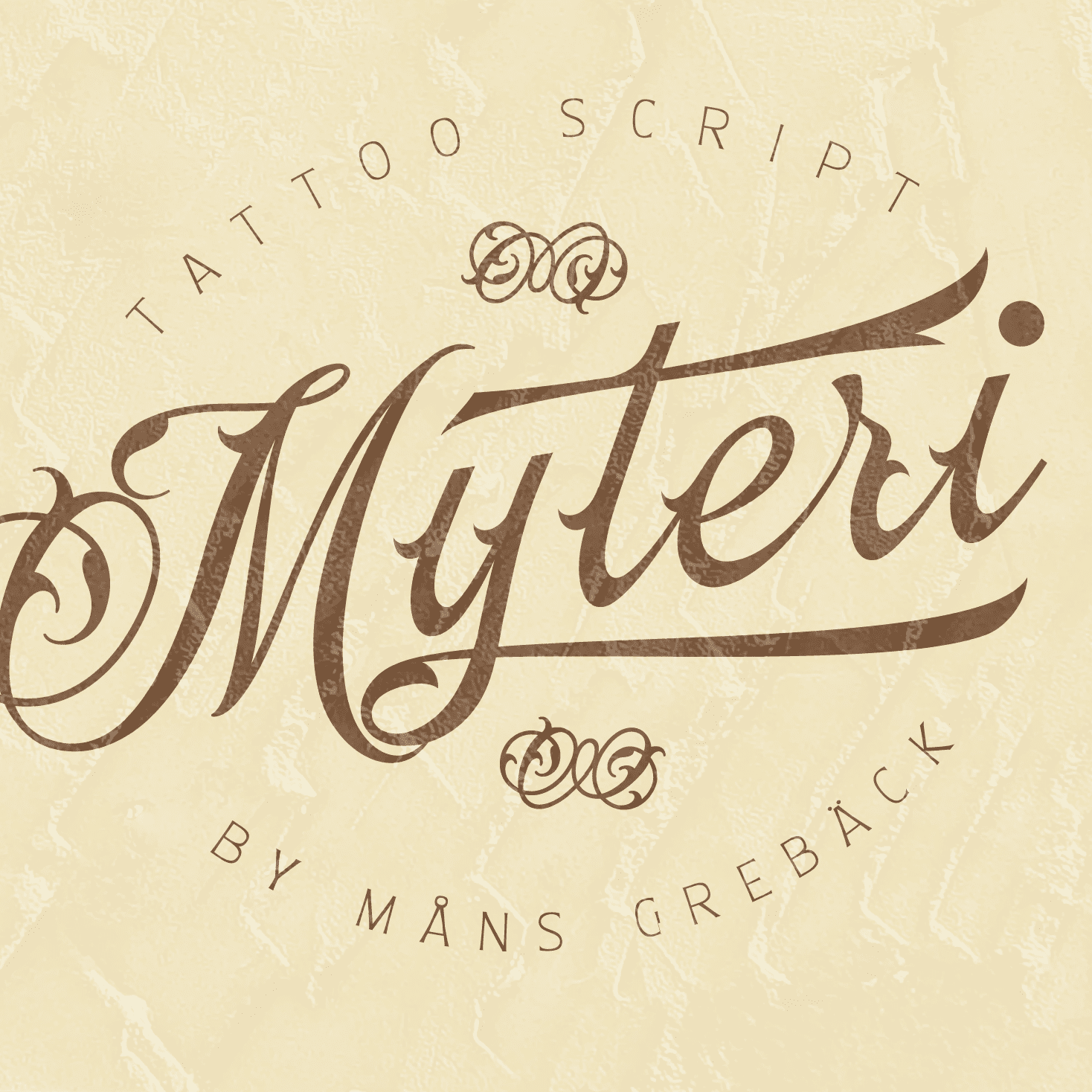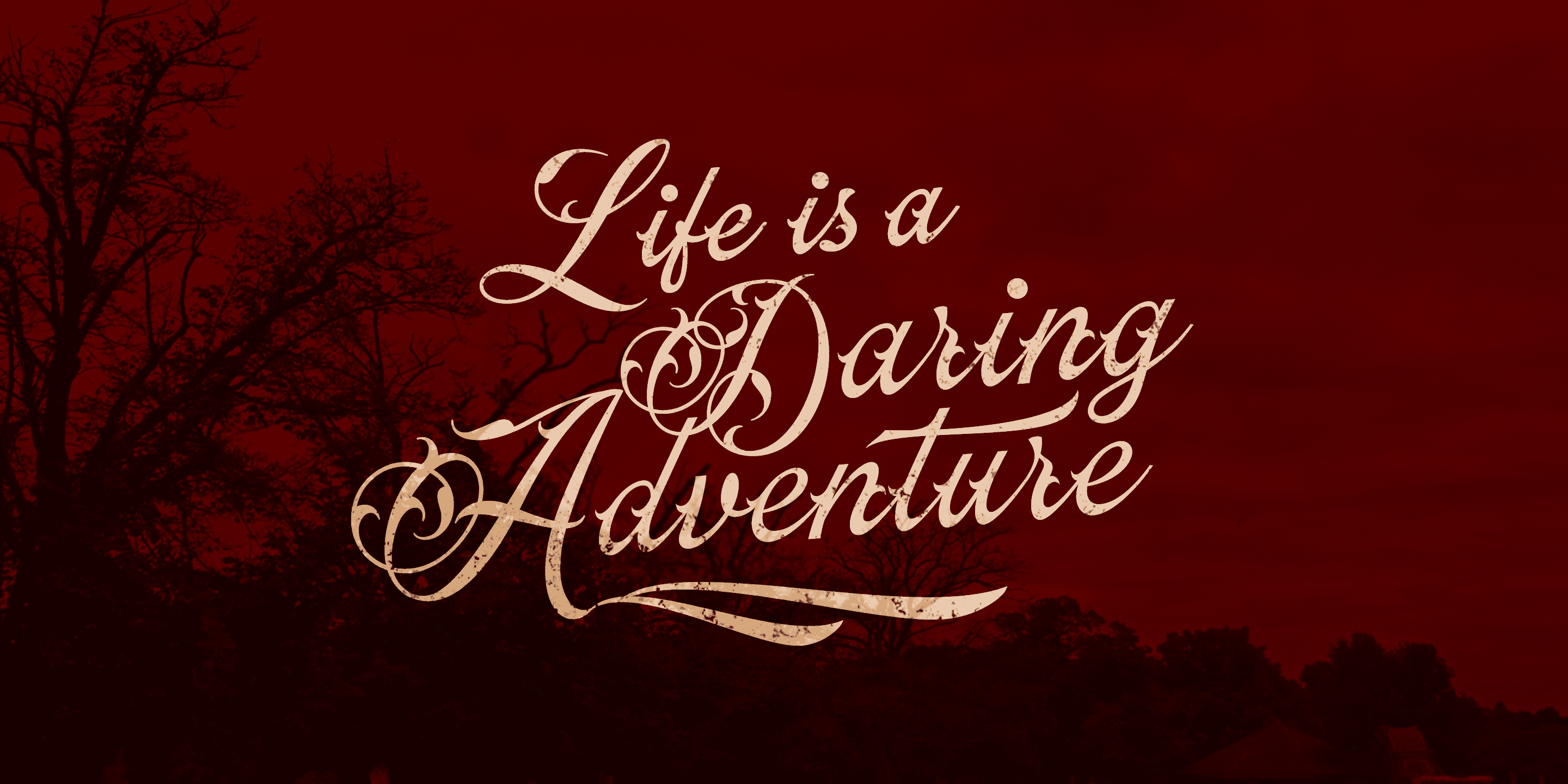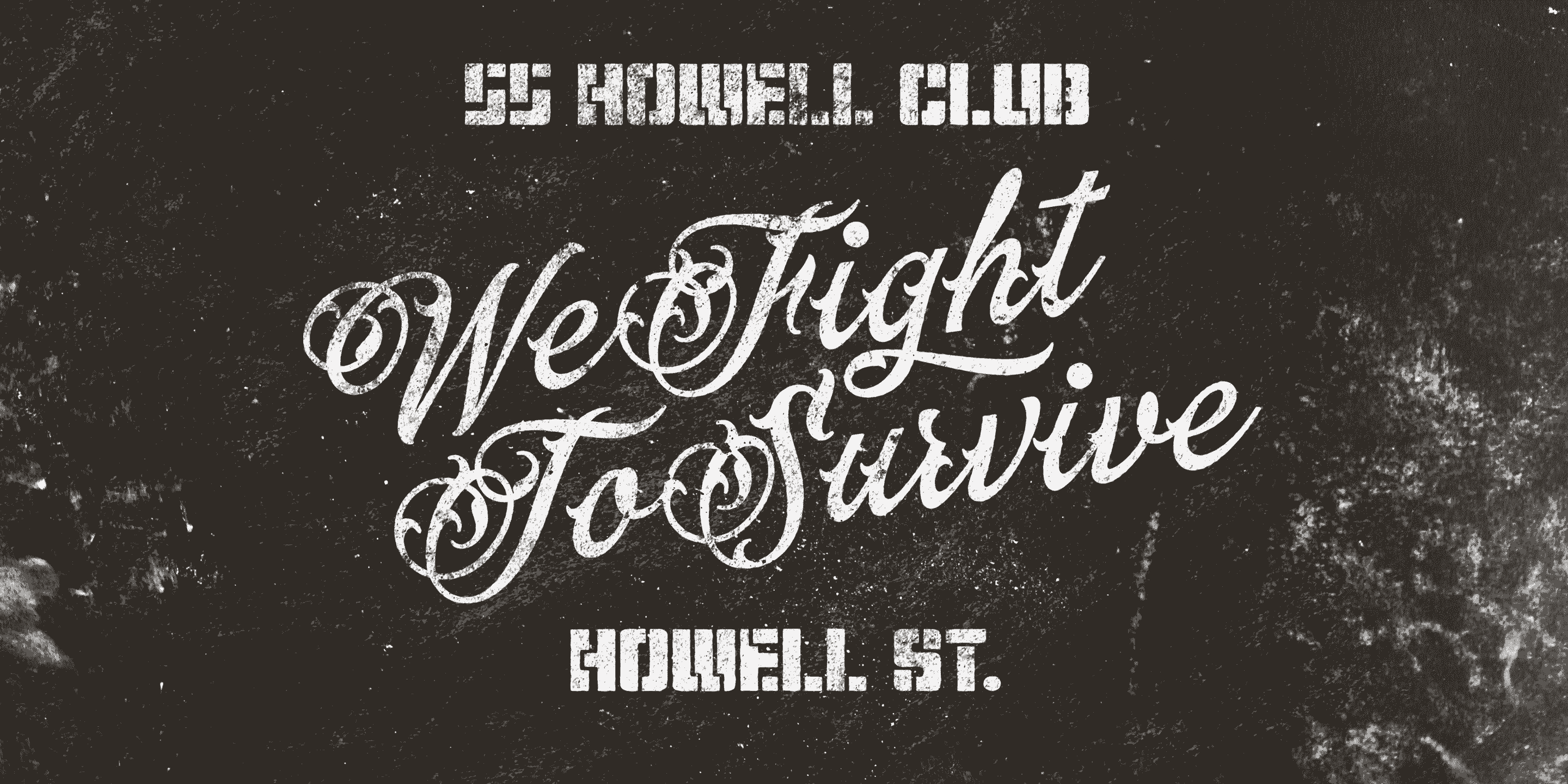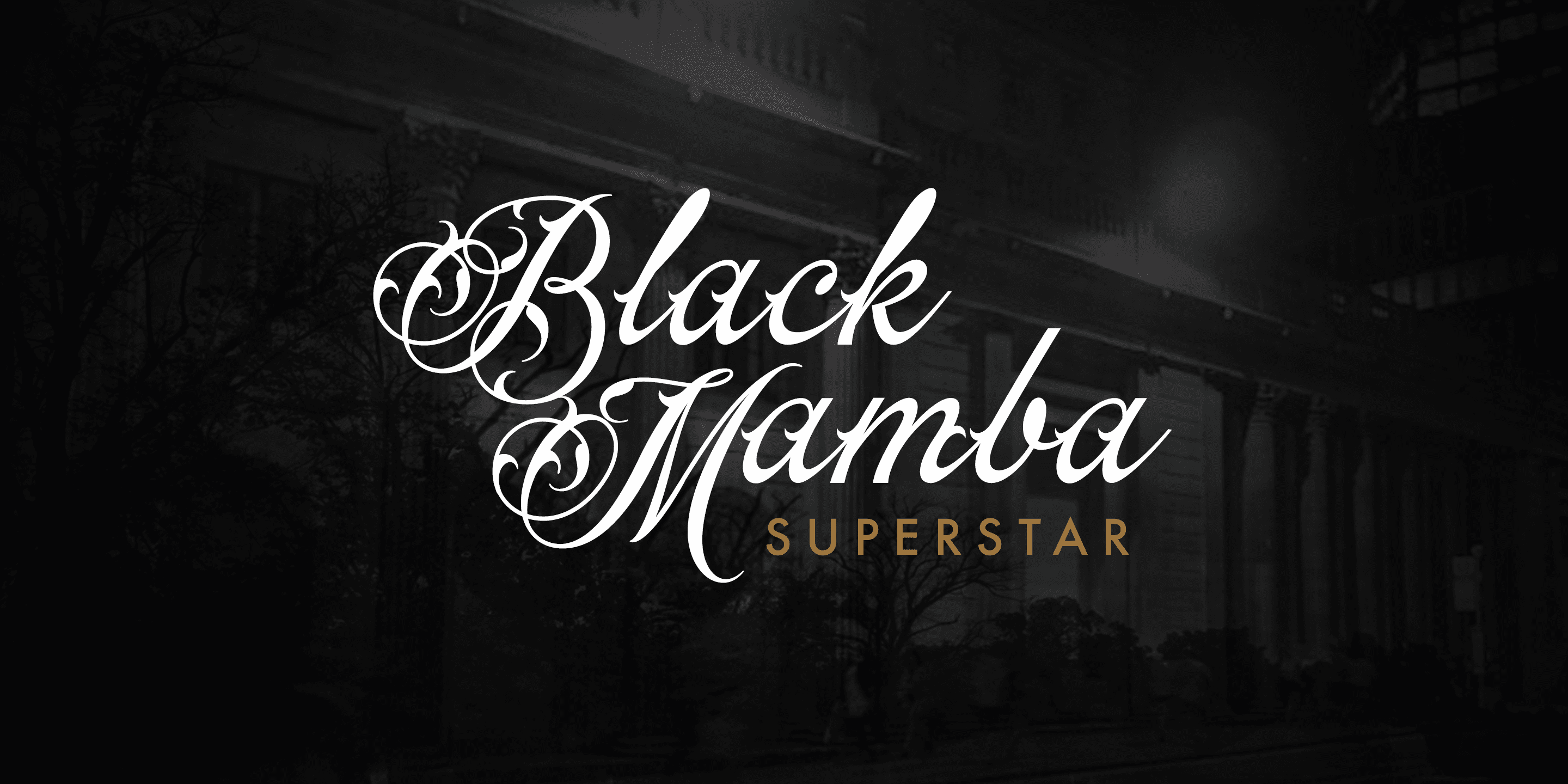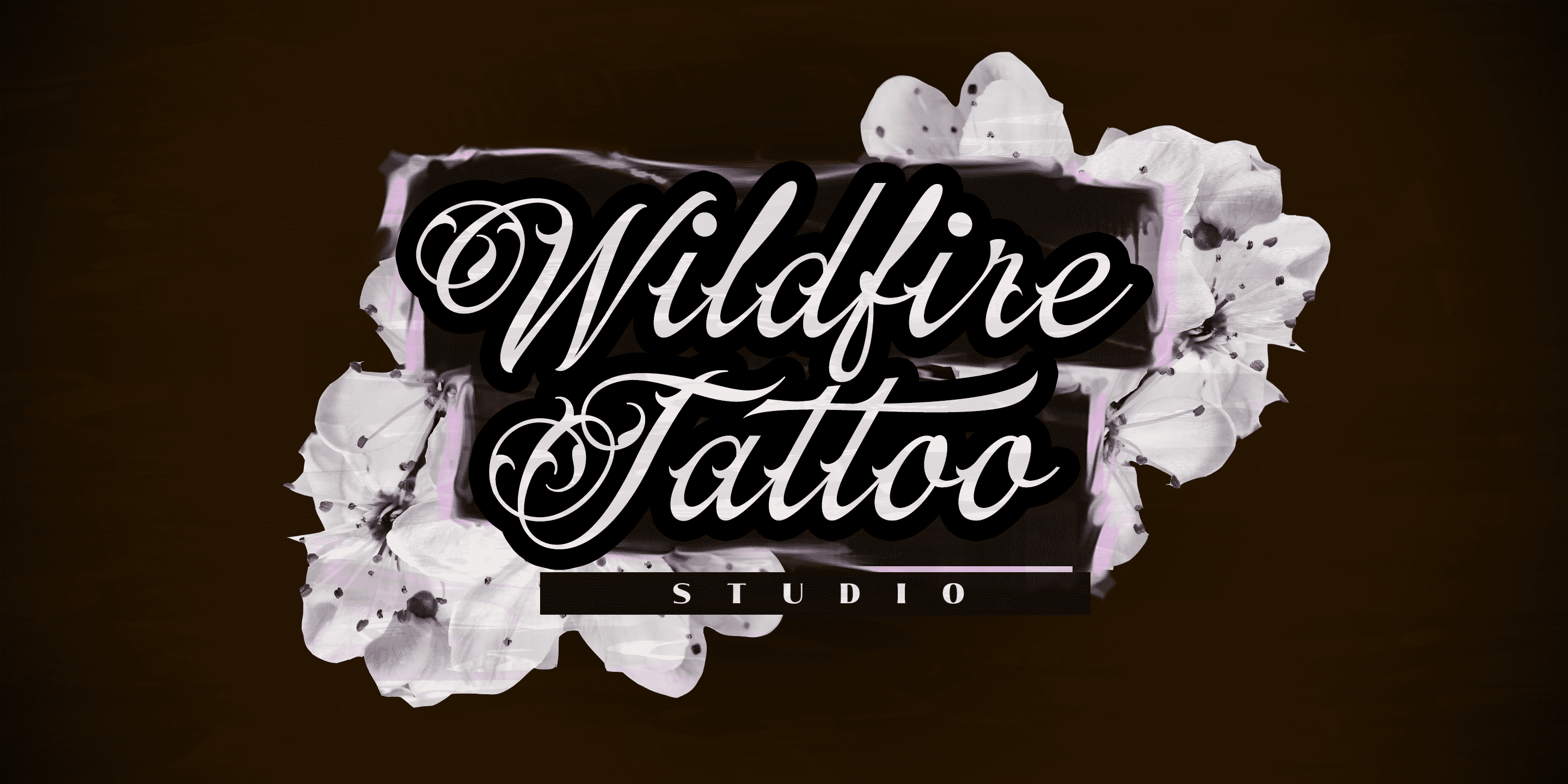
Myteri
About the Myteri Font
Myteri is an expressive tattoo script font.
Drawn and created by Mans Greback in 2021, this lettering has a wild rock’n’roll style and a tough personality, with graffiti-inspired calligraphy and vivid movements.
To make swashes, use [ ] { } _ anywhere in a word.
Example: Tatt_oos
Write multiple [ ] { } to make swashes of different lengths.
Example: Super[[[star
The font is built with advanced OpenType functionality and has a guaranteed top-notch quality, containing stylistic and contextual alternates, ligatures and more features; all to give you full control and customizability.
It has extensive lingual support, covering all European Latin-based languages.
It contains all characters and symbols you’ll ever need, including all punctuation and numbers.